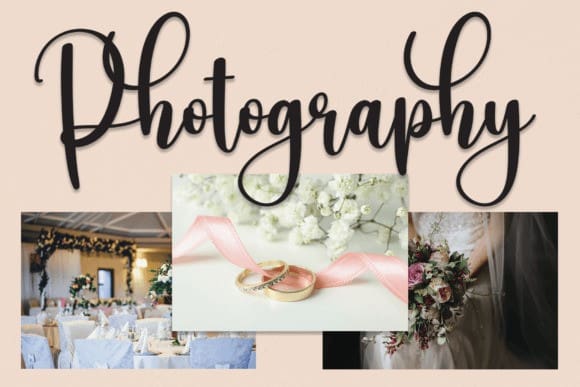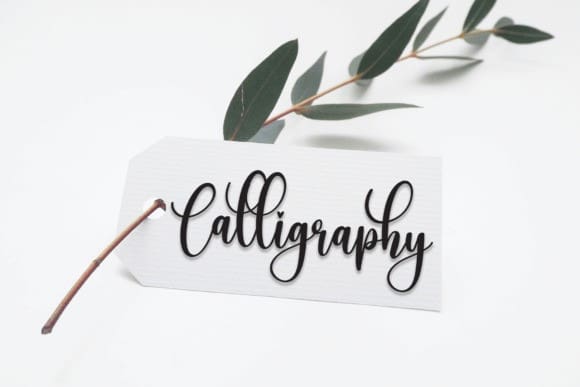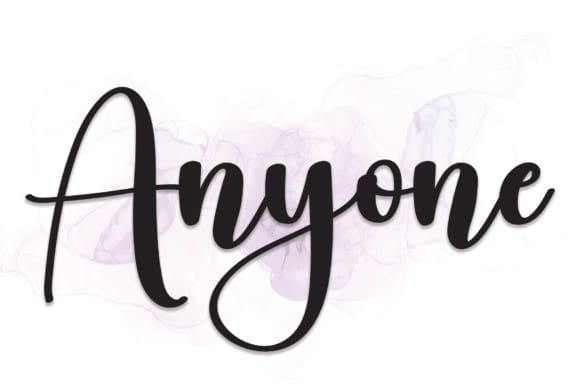
Anyone Script Typeface
Anyone Script Typeface, This font’s latest style letters are perfect for wall displays, wedding invitations, social media post logos, advertisements, product packaging, product designs, labels, photography, watermarks, invitations, stationery, and any project that requires a handwritten taste.